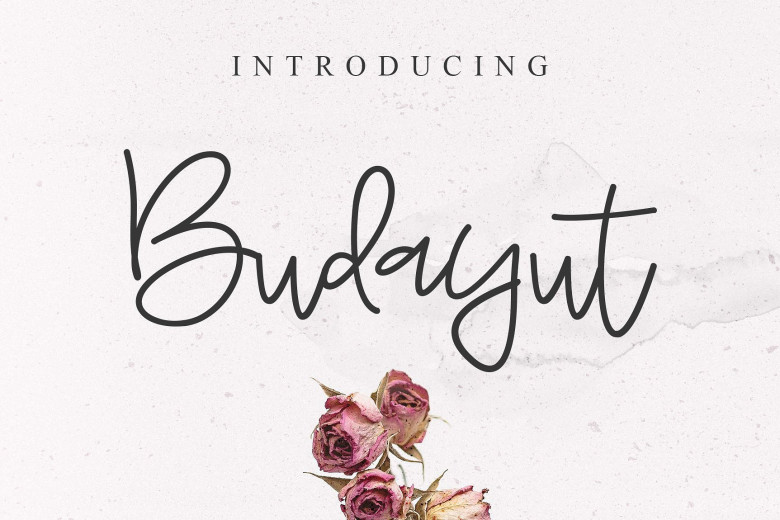
Budayut Signature Font
Hello Guys! This is signature handwritten, easy to use, naturally from handmade. Say hello to the Budayut Font. It allows you to create stunning and easy hand-lettering in an instant. Ideal for the logo, quotes, wedding, product label/packaging, fashion, letter, advertising, invitation, poster, merchandise, greeting cards, etc.